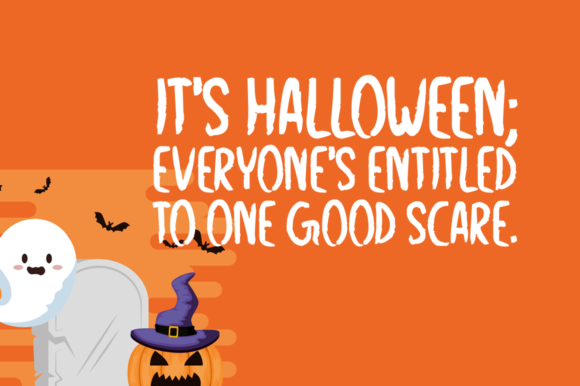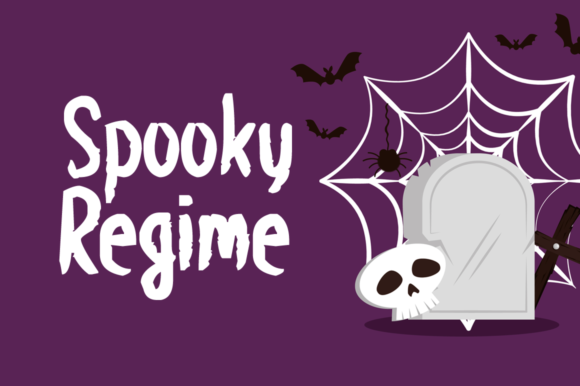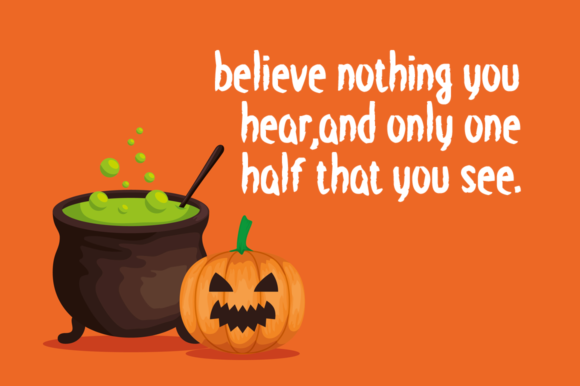
Introduction to Halloween Occurrence Font
Halloween Occurrence is an incredibly unique display font.
Why Choose Halloween Occurrence Font?
Halloween Occurrence Font offers exceptional quality and versatility, making it a valuable addition to your design toolkit. Whether you’re creating for personal projects or commercial use, Halloween Occurrence Font delivers professional results.